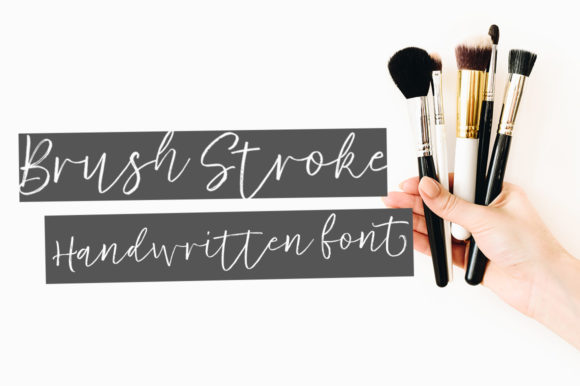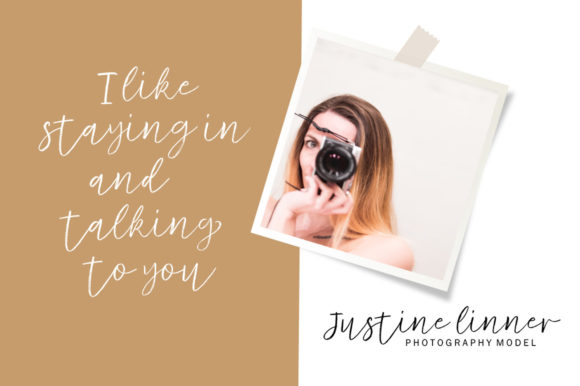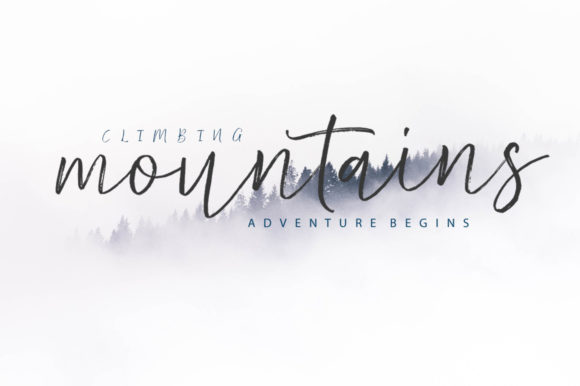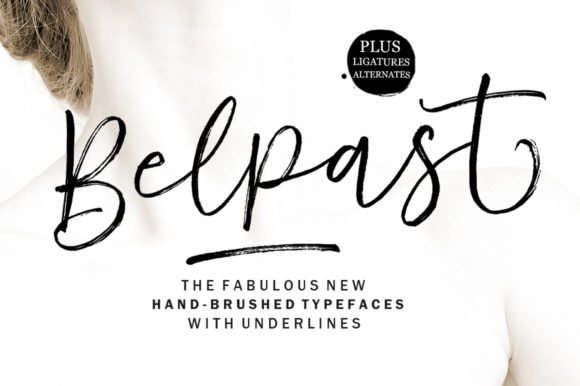
Introduction to Belpast Script Font
Belpast Script is a lovely and elegant script font.
👤 Author Youngtype
This font is PUA encoded which means you can access all of the glyphs and swashes with ease Fall for its ravishing style and use it to create gorgeous designs.
Key Features of Belpast Script Font
Why Choose Belpast Script Font?
Belpast Script Font offers exceptional quality and versatility, making it a valuable addition to your design toolkit. Whether you’re creating for personal projects or commercial use, Belpast Script Font delivers professional results.